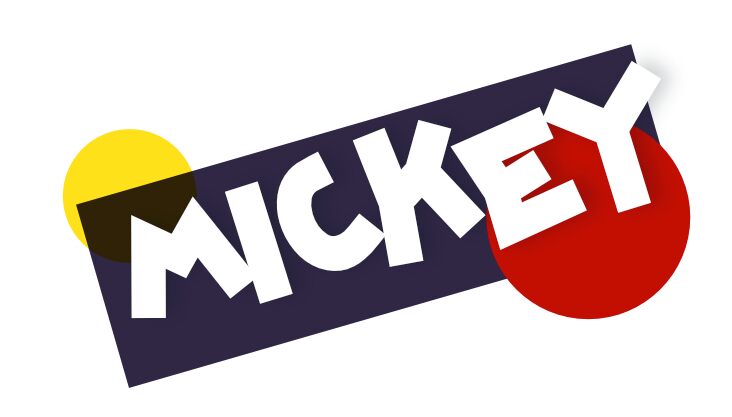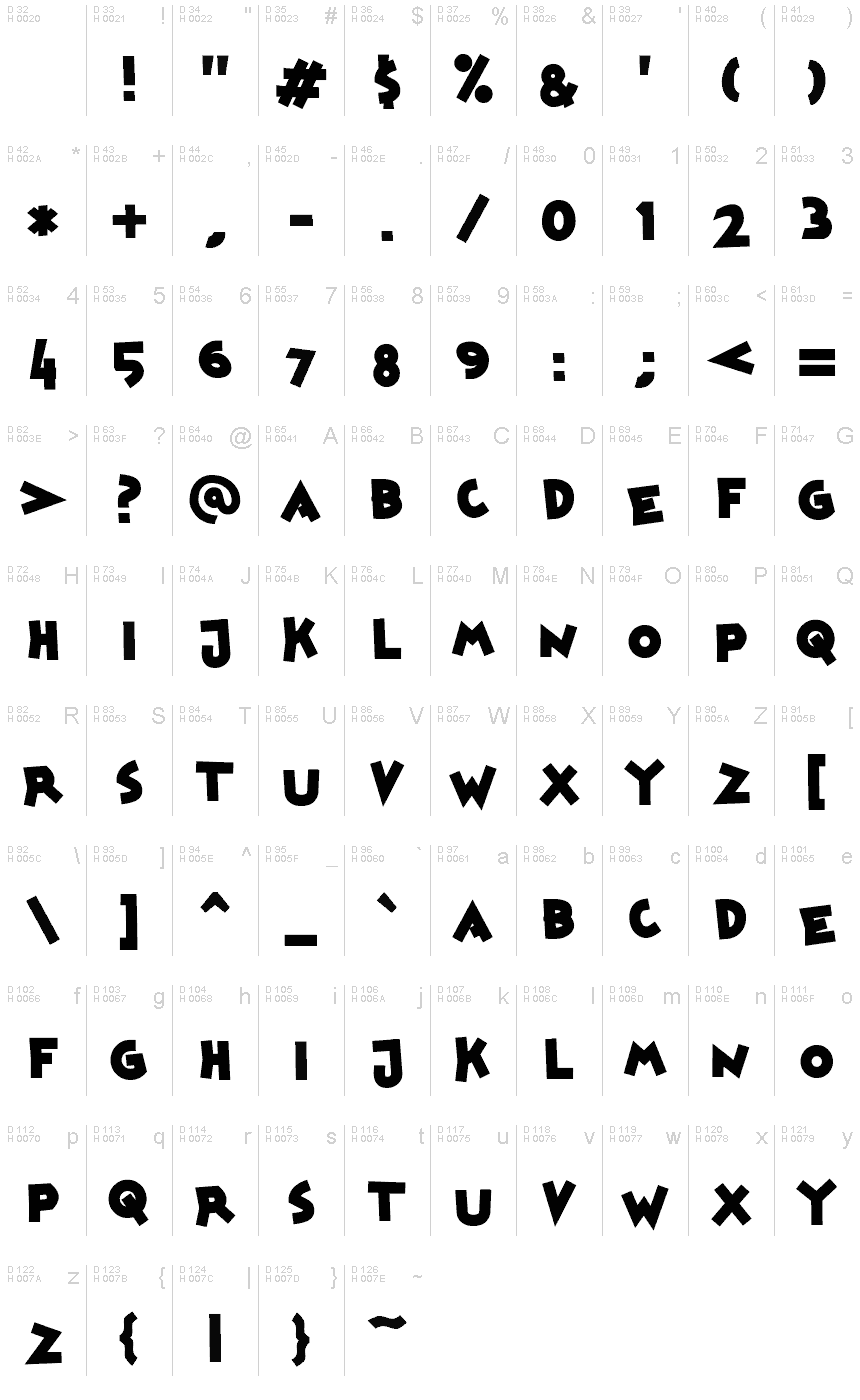
Mickey KW is a bold, cartoony display font that exudes a playful, whimsical charm. Designed by Hati, this font boasts unique letterforms with exaggerated, rounded shapes and dynamic, angular terminals. The striking, hand-drawn aesthetic evokes the classic style of vintage cartoons, making it an ideal choice for a range of playful, lighthearted design applications.
From children's illustrations and book covers to packaging, branding, and even movie titles, Mickey KW possesses a distinctive personality that can instantly elevate the visual impact of any project. Its bold, attention-grabbing presence makes it a versatile tool for designers seeking to inject a touch of playfulness and nostalgia into their work.
Inspired by Mickey the Mouse
a very Fat and Bold character
This font is good for DISPLAY or headline purpose